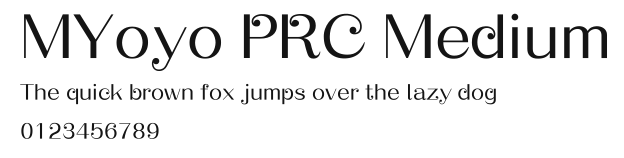
• Font Name: MYoyo PRC Medium
• Manufacturer: Monotype Imaging Inc.
MYoyo PRC Medium.ttf is a modern, elegant sans-serif font designed for ultimate readability and visual harmony. Perfect for branding, headlines, web design, and print materials.